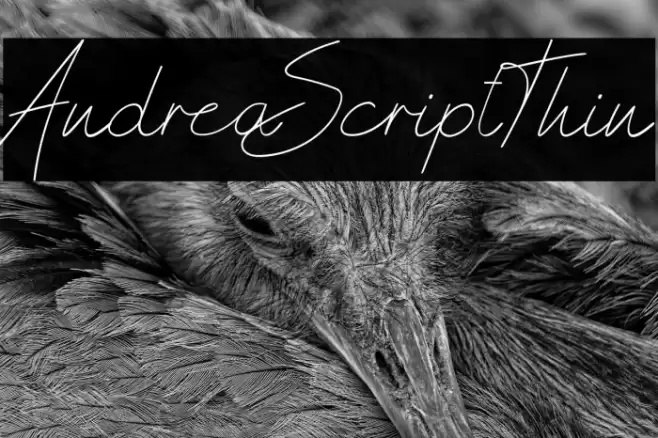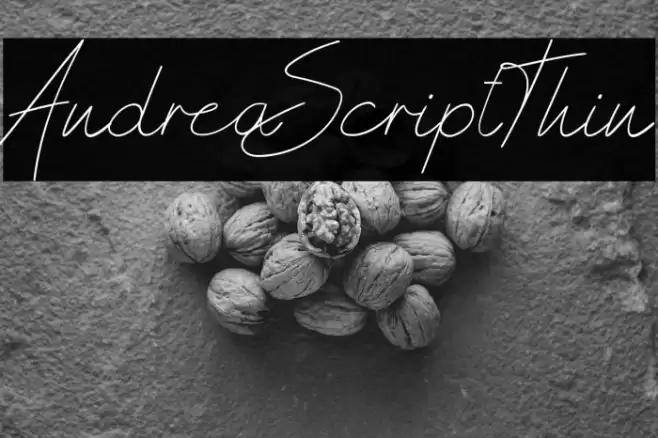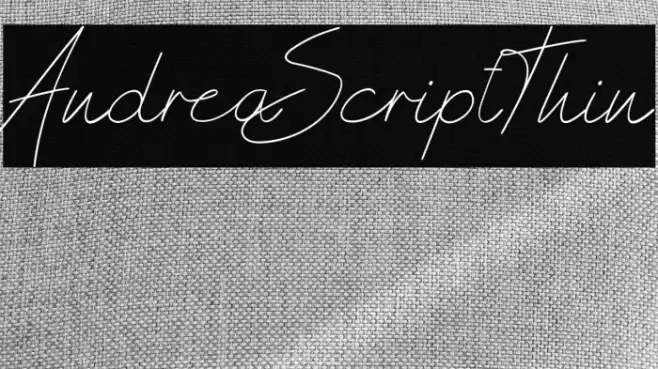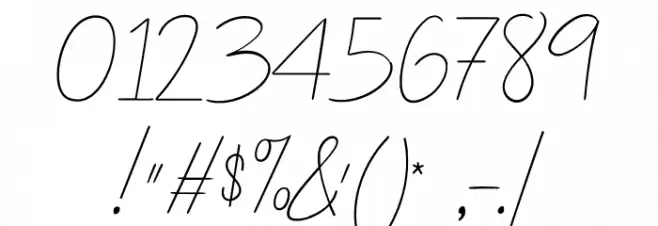
AndreaScriptThin Font
AndreaScriptThin Description
This elegant script font features a delicate and flowing design, characterized by its thin, graceful strokes and smooth, cursive style. The letters are interconnected, creating a seamless and fluid appearance that mimics natural handwriting. Its thin lines and gentle curves give it a sophisticated and airy feel, making it ideal for projects that require a touch of elegance and refinement. The font maintains a consistent stroke width throughout, ensuring readability while preserving its artistic flair. Its overall design is both modern and timeless, suitable for a variety of creative applications.
A thin, elegant script font with flowing, cursive strokes from Uncategorized fonts.
- Proposed Projects: Ideal for wedding invitations, elegant branding, personal stationery, and artistic projects.
- Overall Style: Elegant, Modern
- Use Case: Logos, Invitations, Decorative text